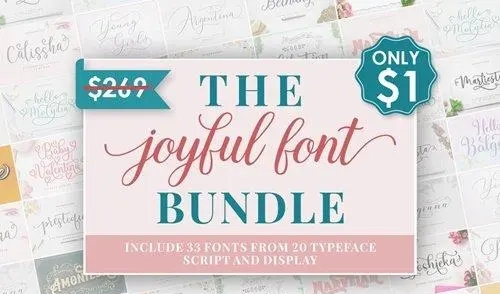
The Joyful Font Bundle
The Joyful Font Bundle is a carefully curated collection of unique typefaces designed to bring a sense of happiness and creativity to your projects. This bundle includes a variety of font styles, from playful scripts to bold display fonts, each crafted to add a cheerful touch to your designs.
• Multiple font styles: script, sans-serif, display
• Various weights for flexibility in design
Each font in this bundle is designed with attention to detail, ensuring readability and aesthetic appeal. The combination of different styles allows for versatile applications, whether you are creating logos, branding materials, or social media graphics.
Utilize these fonts in web design, print projects, and UI elements to convey a cheerful and inviting atmosphere. Experiment with mixing different styles within the bundle for a more dynamic look.